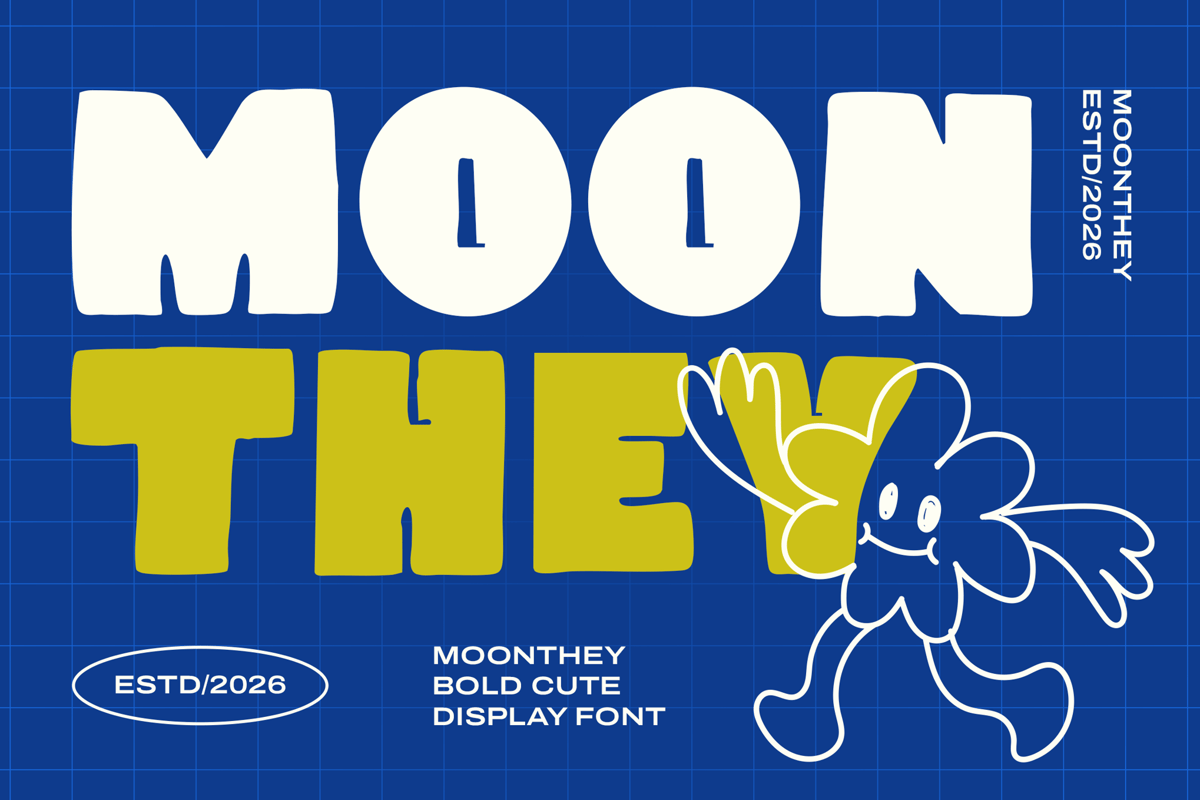
Moonthey – Bold Retro Display Font
Moonthey is the chunky, cartoon-inspired display font that brings bold retro charm to any design project.
Inspired by classic cartoon lettering and vintage pop visuals, Moonthey delivers a fun, nostalgic aesthetic with soft handcrafted shapes and bouncy proportions. Its expressive, rounded style instantly adds personality and playfulness to everything it touches.
Whether you're crafting food and drink labels, kids' branding, retro posters, mascot illustrations, or bold merchandise prints, Moonthey brings a joyful, cheerful energy that's hard to miss.